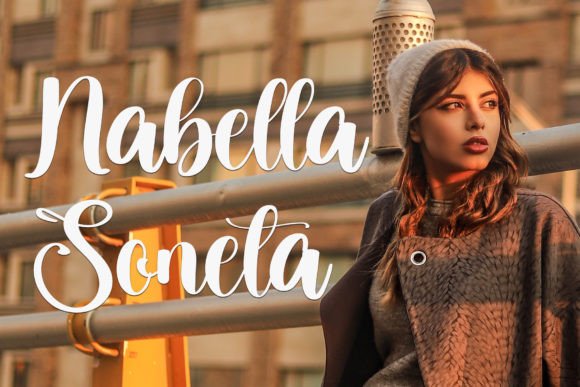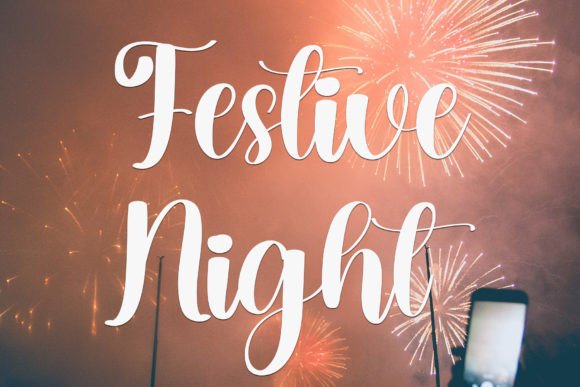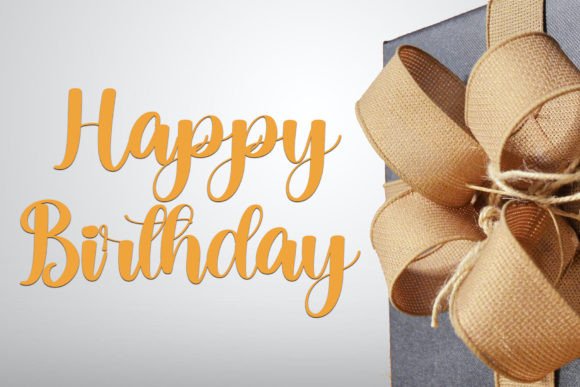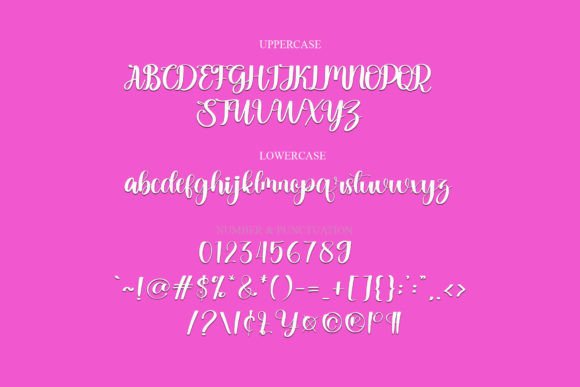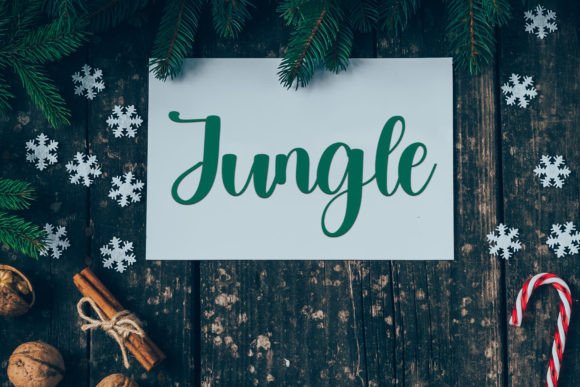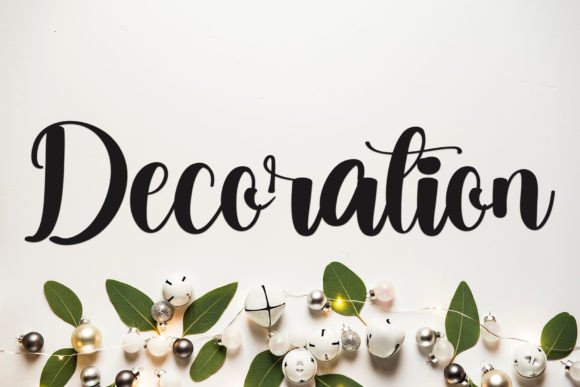
Bolder Font: Elevate Your Designs with a Timeless Classic
In the world of typography, a well-crafted font can make all the difference in elevating your design projects from ordinary to extraordinary. For designers and crafters seeking a stylish and contemporary handwritten font, Bolder is an exceptional choice. Inspired by timeless classic calligraphy, Bolder boasts a unique blend of balance, variation, and impeccable form that is sure to enhance the beauty of your creations.
The Inspiration Behind Bolder
Bolder’s design roots lie in traditional calligraphy, where the art of beautiful handwriting has been perfected over centuries. The font’s creators aimed to capture the essence of classic calligraphy and infuse it with a modern twist, making Bolder a versatile and stylish addition to any design project. By combining the elegance of traditional calligraphy with the flair of contemporary typography, Bolder has become a standout font in the world of typography.
Key Features of Bolder Font
So, what sets Bolder apart from other fonts? Here are some of its key features:
- Handwritten with a contemporary atmosphere: Bolder’s handwritten style gives it a personal and approachable feel, while its contemporary atmosphere ensures it remains relevant and fresh.
- Impeccable form: The font’s precise and elegant letterforms showcase exceptional craftsmanship, making it perfect for designs that require attention to detail.
- Balanced and varied: Bolder’s characters are thoughtfully designed to provide a harmonious balance between consistency and variation, ensuring your text remains engaging and easy to read.
Why Choose Bolder Font?
Whether you’re a designer, crafter, or DIY enthusiast, Bolder font offers numerous benefits that make it an excellent choice for your projects:
- Enhance your project’s aesthetic: Bolder’s stylish and elegant design will instantly elevate the visual appeal of your projects, making them more engaging and professional.
- Perfect for branding and marketing materials: The font’s contemporary and sophisticated feel makes it ideal for use in logos, brochures, business cards, and other marketing materials.
- Versatile and adaptable: Bolder can be used in a wide range of design applications, from digital projects like websites and social media graphics to print materials like posters and flyers.
Tips for Using Bolder Font Effectively
To get the most out of Bolder font, consider the following tips:
- Pair with complementary fonts: Combine Bolder with other fonts that complement its style to create visual interest and hierarchy in your designs.
- Experiment with font sizes and colors: Play with different font sizes and colors to add depth and emphasis to your text, making it more engaging and dynamic.
- Use it for headlines and titles: Bolder’s elegant and attention-grabbing design makes it perfect for use in headlines, titles, and other prominent text elements.
In conclusion, Bolder font is a stylish and versatile handwritten font that offers a unique blend of classic calligraphy and contemporary typography. With its impeccable form, balanced and varied design, and elegant aesthetic, Bolder is an excellent choice for designers and crafters seeking to elevate their design projects. Whether you’re working on branding materials, marketing collateral, or personal projects, Bolder font is sure to make a lasting impression.